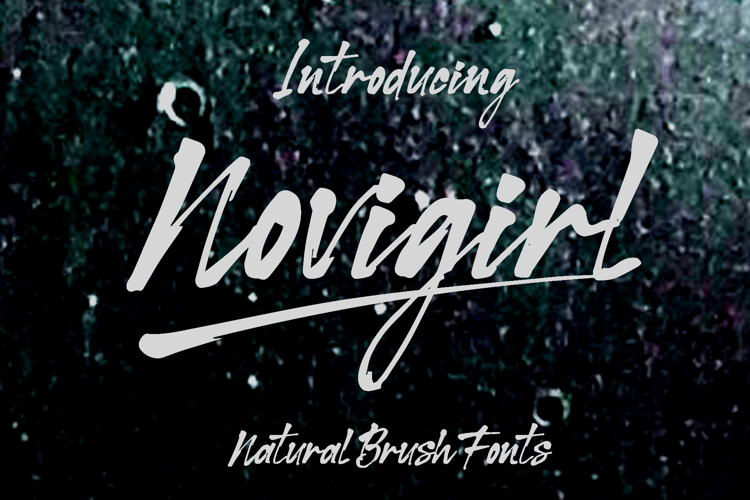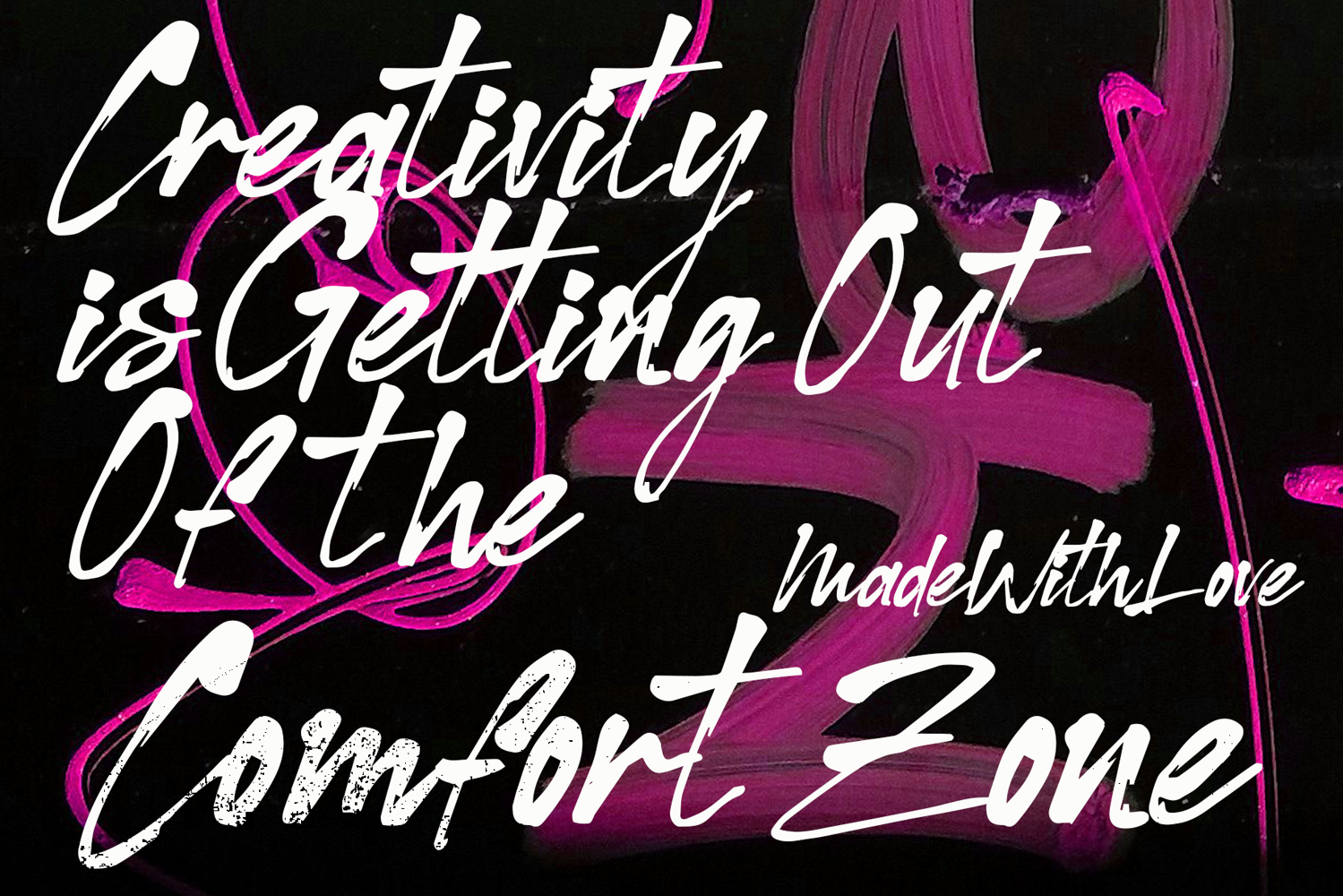
Discover the natural charm of this hand-stroked brush font, meticulously crafted using dip inks. Expressing the rawness of brush on paper, this unique typeface exudes a natural and down-to-earth feel. Imagine a rugged aesthetic blended with the romance of handwritten letters, each character featuring a unique stroke texture for a natural yet elegant finish. A perfect blend of classic art and contemporary design, this font brings authenticity and originality to your digital designs.